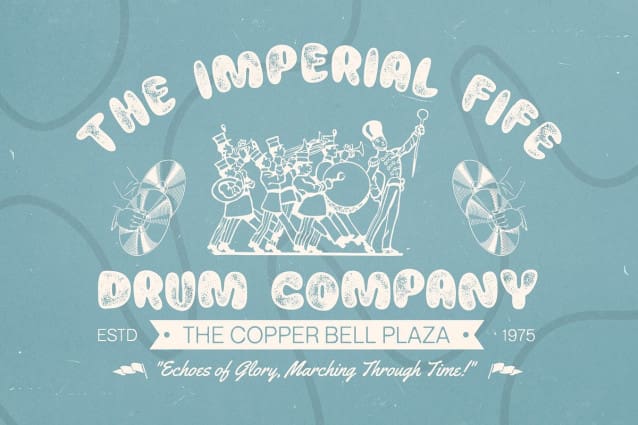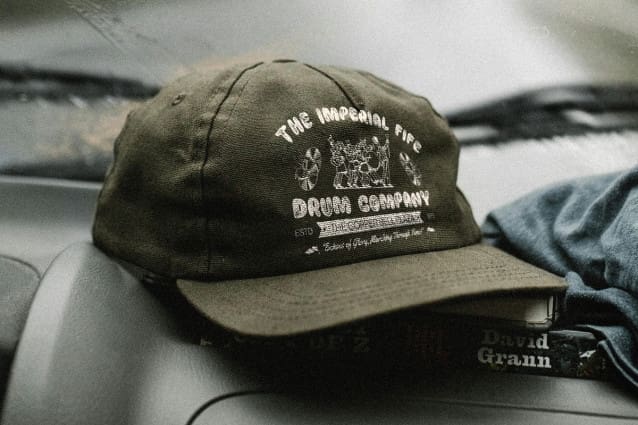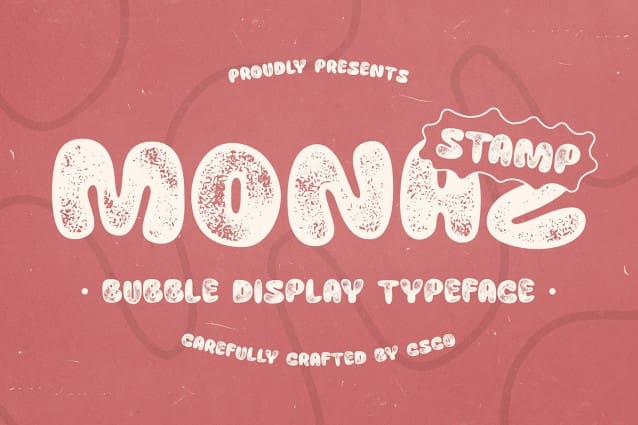
Monaz Stamp Font
Monaz Stamp Font is a bubble display font that radiates a bold, thick design, encapsulating a cute and cheerful vibe. Its rounded shapes and playful aesthetic make it the ideal choice for vibrant projects, from children’s products to party invitations. This font’s dynamic presence ensures it brings a lively spirit to any design.
Playful Aesthetic for Vibrant Projects With its fun and inviting look, Monaz Stamp is perfect for creative branding that aims to capture attention and convey joy. The playful nature of the font resonates with audiences of all ages, making it a fantastic choice for designs that require an element of fun and excitement. Whether you’re crafting promotional materials or festive announcements, Monaz Stamp delivers a delightful touch.
Unique Stamp Effect for Added Texture The added stamp effect enhances Monaz Stamp’s playful character, giving it a distinctive texture that sets it apart from typical display fonts. This unique feature adds depth and interest, ensuring that the font stands out in any design context. The combination of boldness and texture creates an eye-catching aesthetic, perfect for grabbing attention.